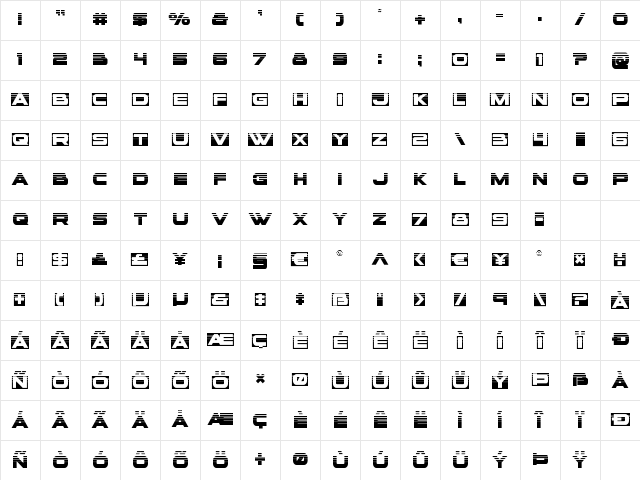
voxBOX Halftone Regular
Design Context for voxBOX Halftone
voxBOX Halftone is a composed and adaptable typeface that performs quietly and consistently across a wide range of design contexts.
Pro Tip: Use voxBOX Halftone in both headline and body roles to test its range before committing to a single application.